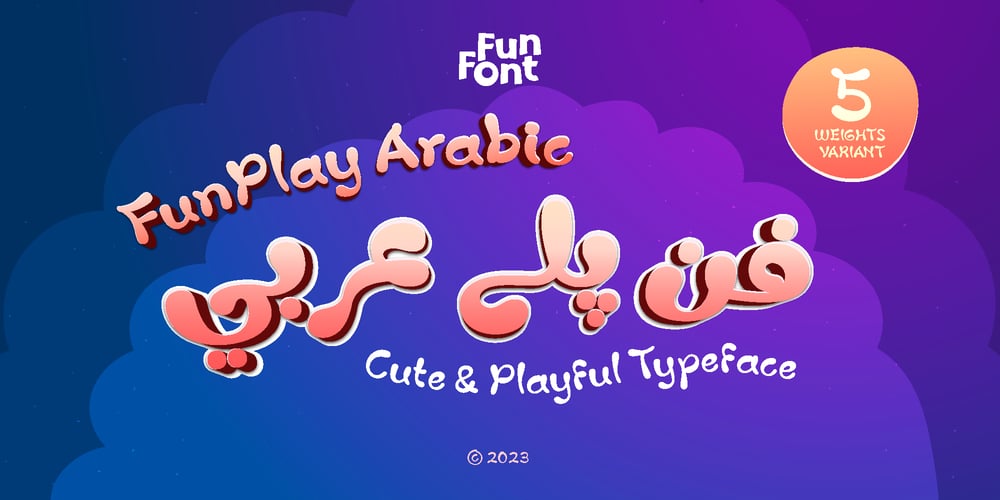
Fun Play Arabic Font Family was designed by Nur Syamsi, Bustanul Arifin and published by FunFont. Fun Play Arabic contains 5 styles and family package options. Fun Play Arabic is sibling of Fun Play comes with Arabic version ; Arabic, Urdu, Persian, Kurdish and Jawi.Fun Play is a Fun and Playful display typeface family with 5 wights variant; from Light to Bold. Comes with many features; Multilingual Support, Ligatures, Stylistic Alternate and more.Each character represents a child’s joy. ‘Fun Play’ can be used for branding, packaging, headline and all styles of children-related design.